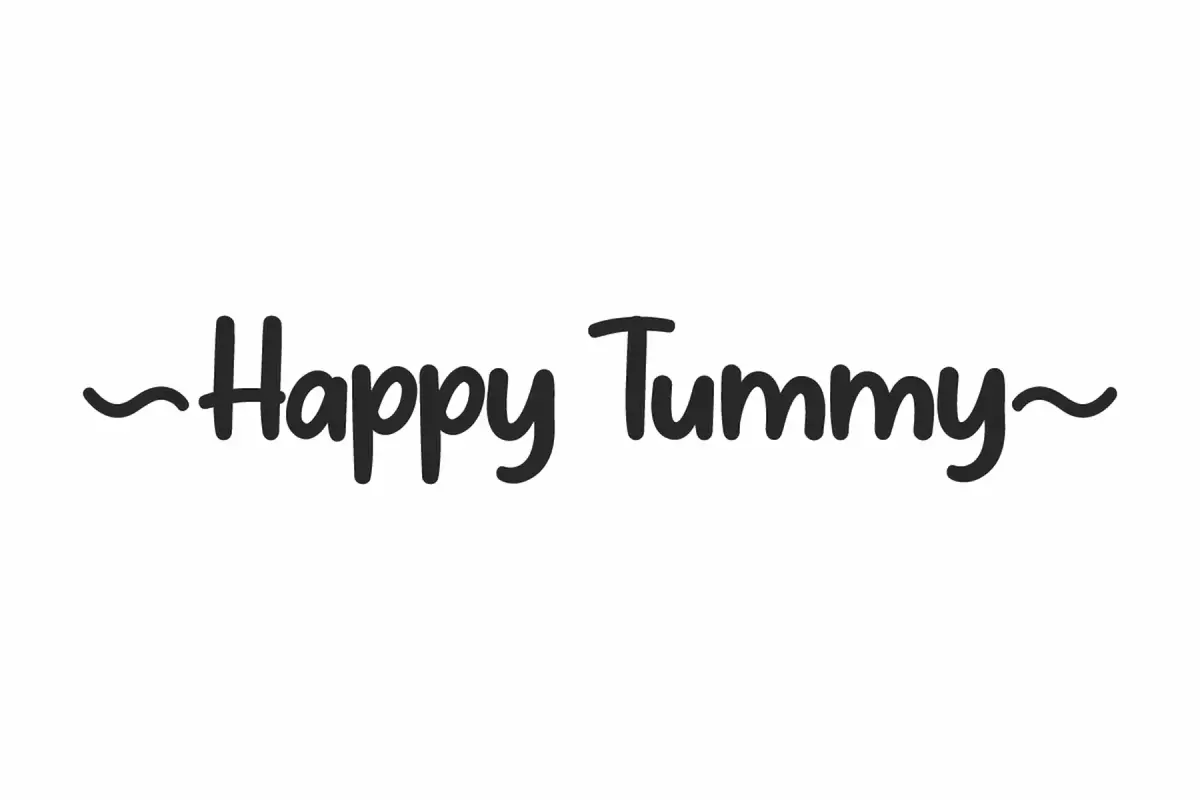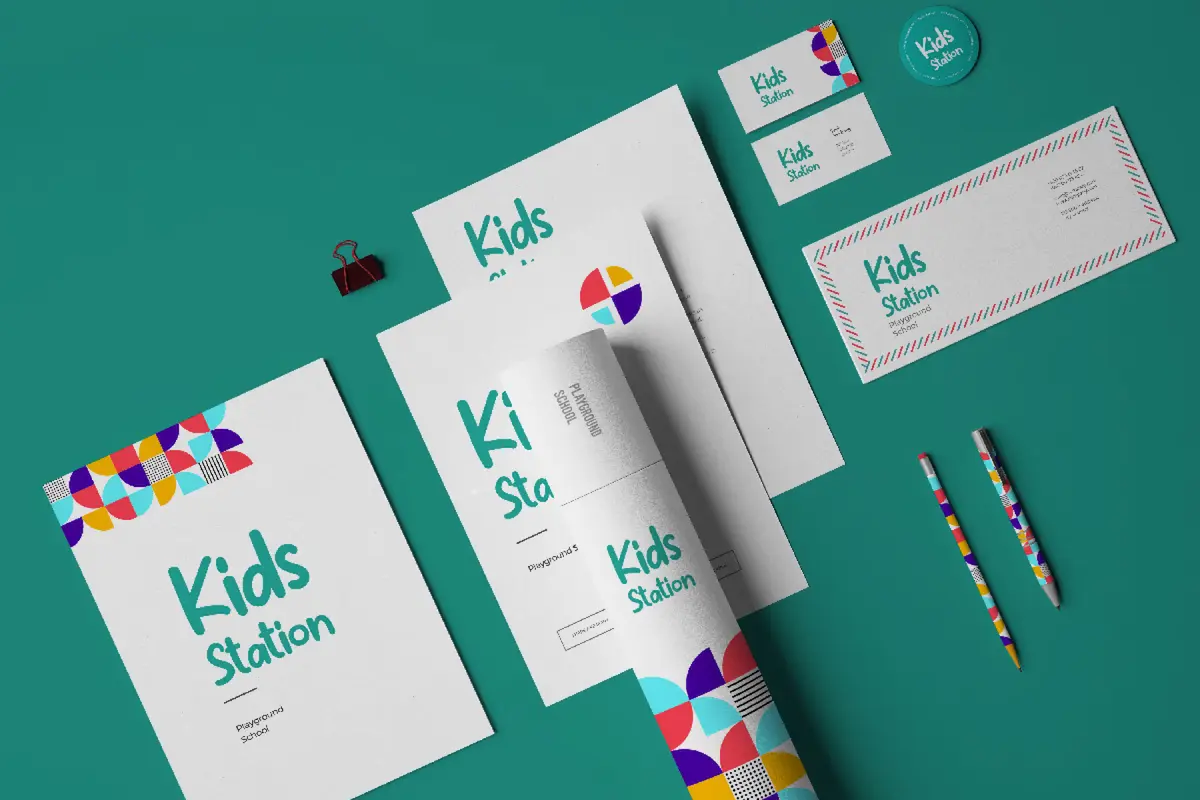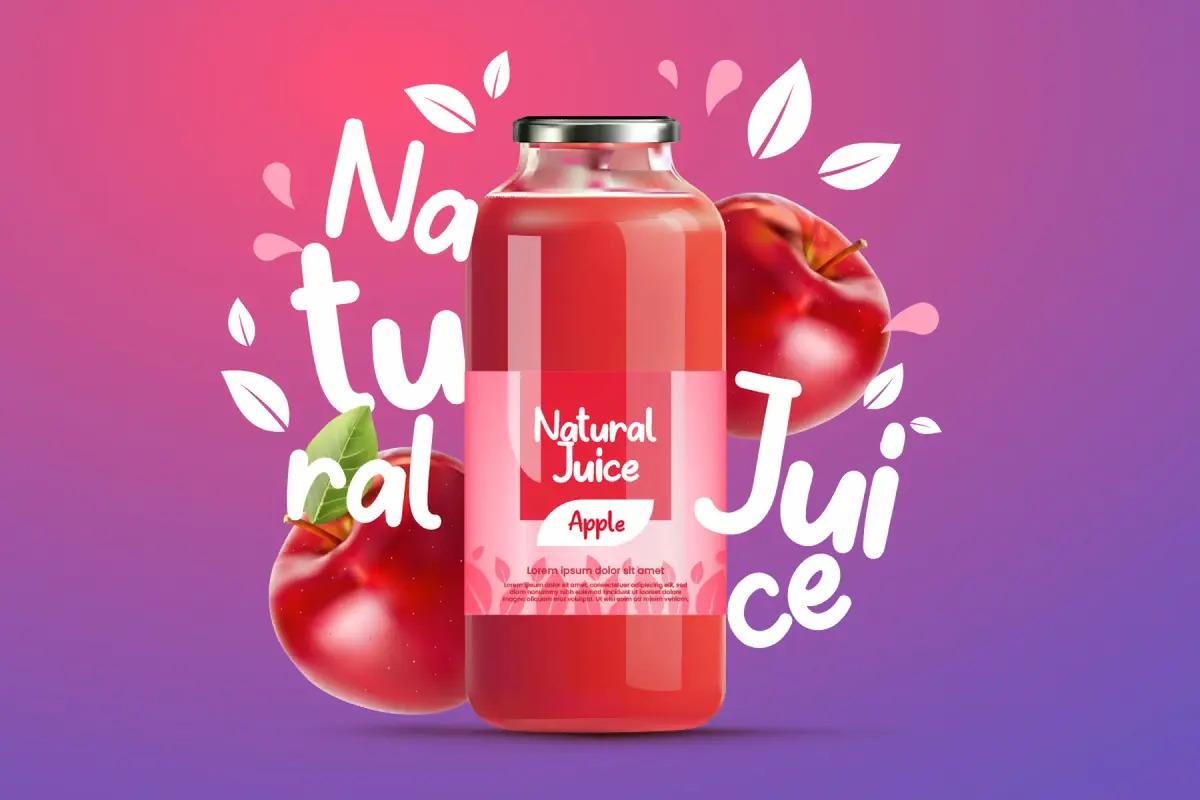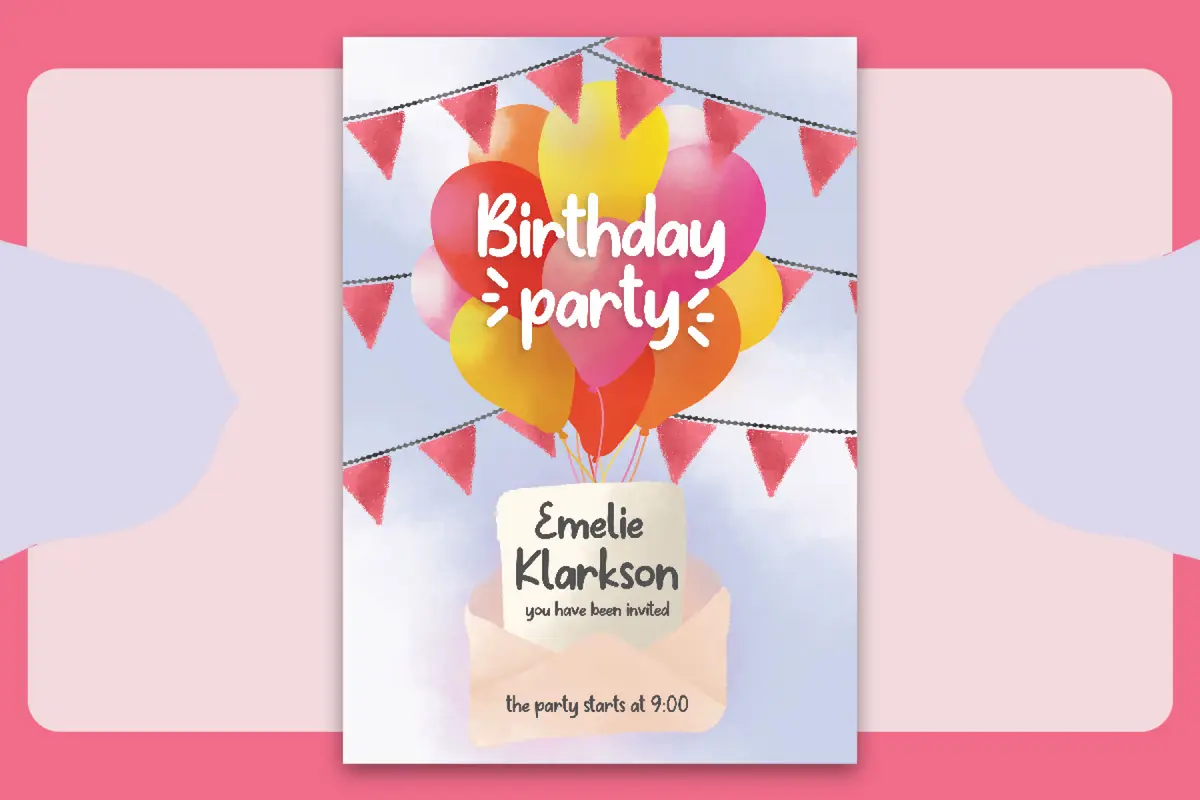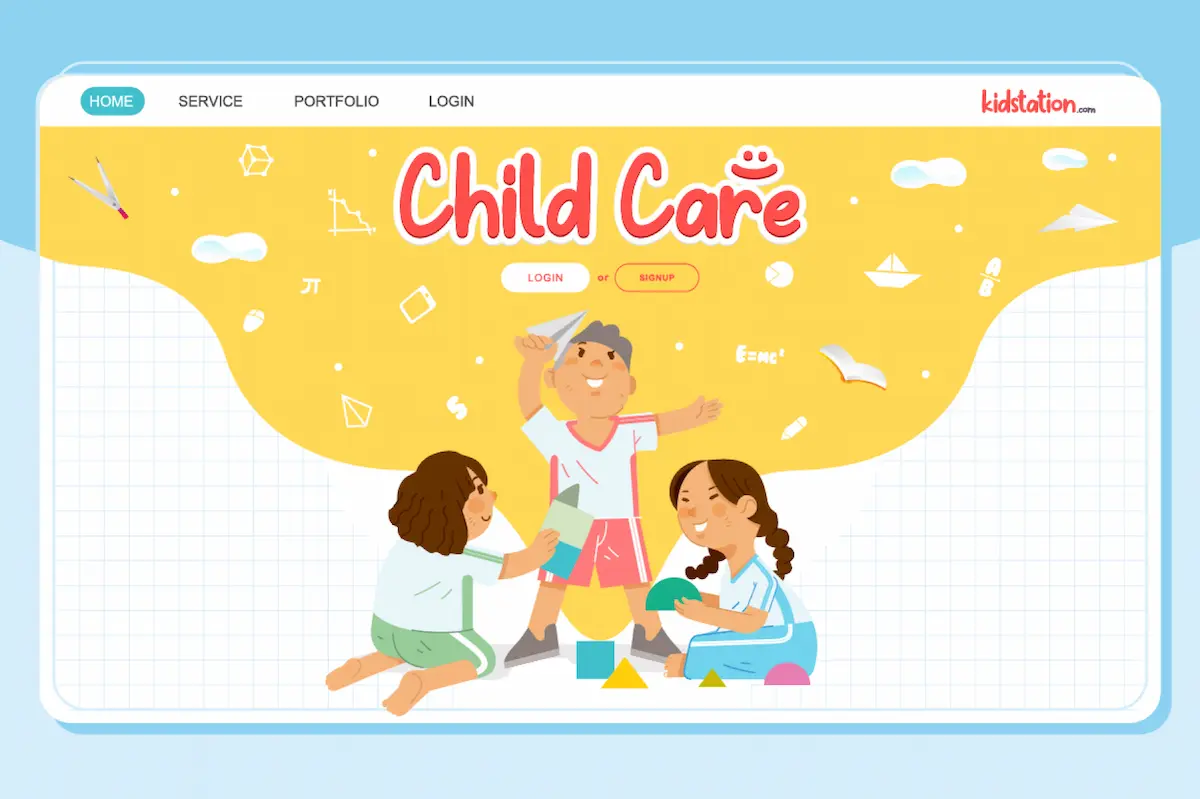
Happy Tummy Font
Happy Tummy Font is a nice playful handwriting font by NihStudio. Made in Indonesia, great for school, restaurants, cartoon etc
Happy Tummy Font was originally made in 2021 by NihStudio, inspired from kids menu on fastfood restaurant. After purchase, On the package you will get :
Happy Tummy Font will be great for any projects (require extended license) including : branding, logo, stationery, wedding invitation, signage, flyer, video tittle etc. The theme style of the font is playful, cartoon and casual brush style. The font will be match for this typeface: houseware, cosmetic, events, artist,  cartoon, café, movie, school,  etc